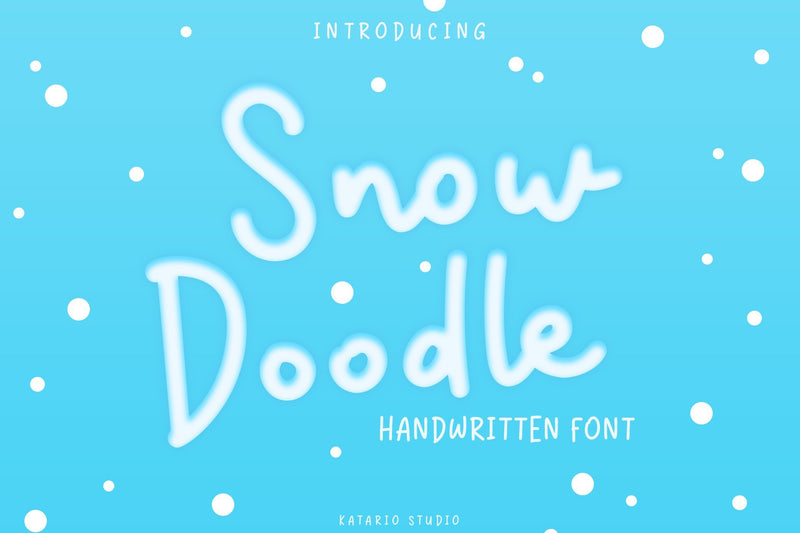
Snow Doodle | Handwritten Monoline Font
Introducing Snow Doodle Font!
Snow Doodle is a Handwritten monoline font perfect for branding project, product packaging, social media, invitation card, express any words you like, winter or christmas projects.
Snow Doodle have:
- Numerics
- Symbols
- Ligature